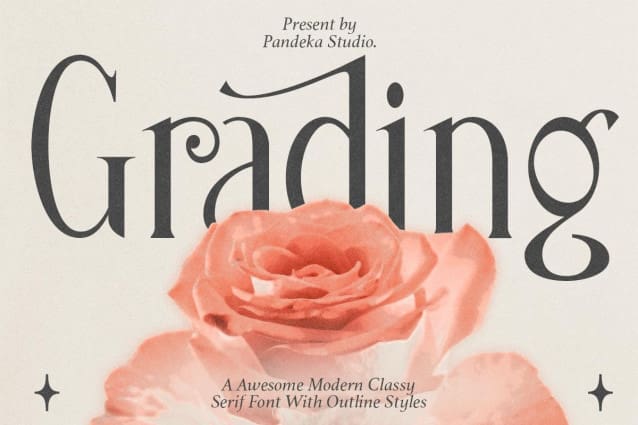
Grading Font
Grading Font is a modern, sleek and stylish Serif font ideal for displaying headlines, logos, branding, magazines, product packaging and invitations. The sizing comes with clean lines and gentle curves that give any project an extra touch of class.
The notation was built with OpenType features and includes ligatures, alternatives, numbers, punctuation and also supports other languages.